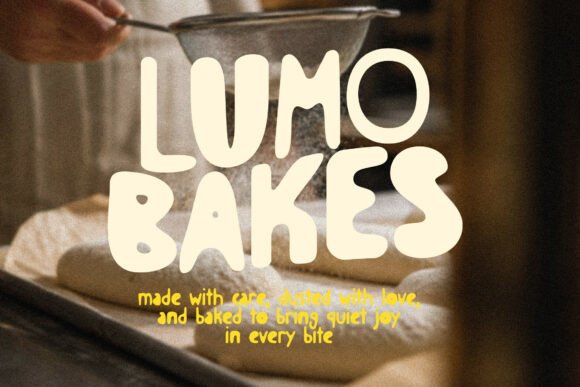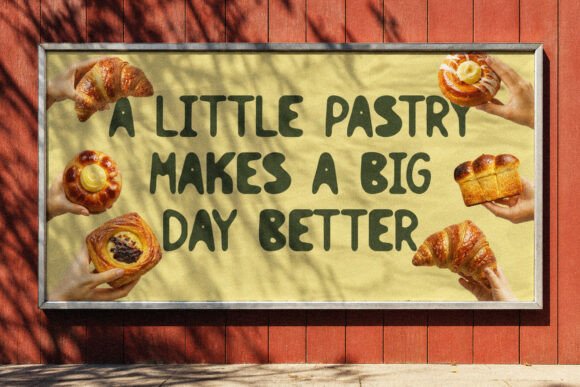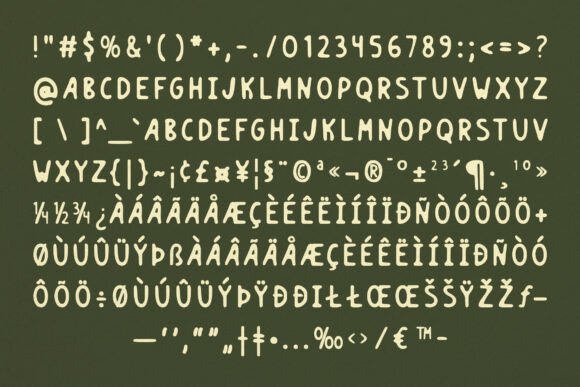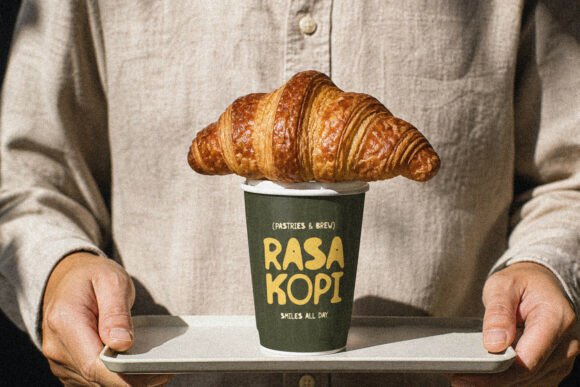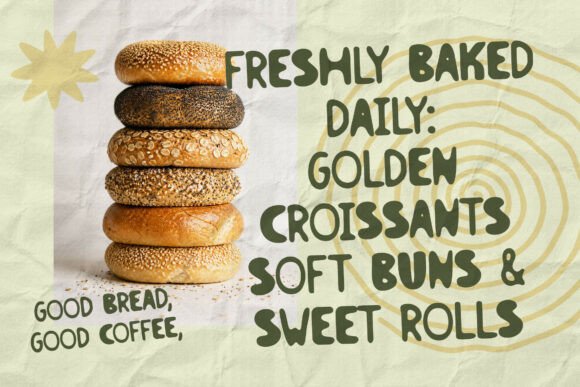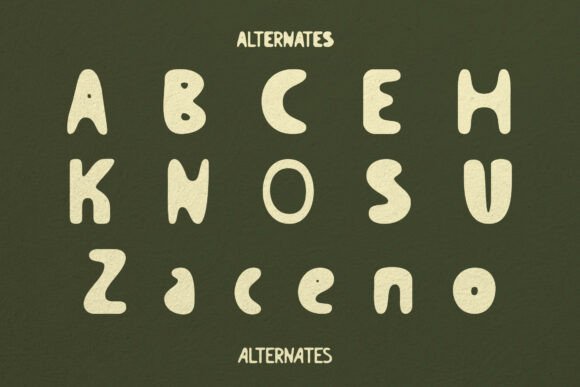
Introducing Finest Things Font: The Perfect Handcrafted Typeface for Your Creative Projects
Are you looking for a font that can add a touch of warmth, personality, and authenticity to your designs? Look no further than Finest Things, a soft-edged handcrafted font that is sure to bring a smile to your customers’ faces. Inspired by the charm of artisan bakeries, cozy cafés, organic packaging, and retro hand-painted signage, Finest Things is the perfect typeface for crafters, designers, and businesses looking to create a unique and memorable visual identity.
The Inspiration Behind Finest Things
Finest Things font is a thoughtful blend of playful character and smooth organic shapes, carefully crafted to evoke the feeling of handmade products and warm, inviting spaces. The font’s soft edges and natural curves are reminiscent of traditional craftsmanship, while its clean lines and legible design ensure that it remains highly readable, even at smaller sizes.
From the rustic charm of a local bakery to the cozy atmosphere of a neighborhood café, Finest Things font is designed to capture the essence of authentic, small-batch craftsmanship. Whether you’re creating branding materials for a food business, designing packaging for handmade products, or crafting social media content that feels approachable and personal, Finest Things is the perfect choice.
Key Features of Finest Things Font
- Soft Edges and Natural Curves: Finest Things features soft, rounded edges and natural curves that give the font a friendly, human touch.
- Handcrafted Details: Every letter is carefully crafted to create a sense of imperfection and uniqueness, adding to the font’s charm and character.
- Highly Legible: Despite its handcrafted feel, Finest Things remains highly readable, making it perfect for use in a variety of applications, from headlines to body text.
- Versatile: Finest Things works beautifully for both bold headlines and casual display text, making it a highly versatile font that can be used across a range of modern branding needs.
Finest Things font is incredibly versatile, making it suitable for a wide range of creative projects. Some of the applications where Finest Things really shines include:
- Rustic Café Branding: Create a warm and inviting atmosphere for your café or restaurant with Finest Things font.
- Bakery Packaging: Add a touch of charm and authenticity to your bakery packaging with Finest Things.
- Children’s Products: Finest Things font is perfect for creating fun and engaging branding for children’s products, such as toys, books, and games.
- Food Branding: Create a memorable and distinctive visual identity for your food business with Finest Things font.
- Social Media Content: Use Finest Things font to create social media content that feels approachable, personal, and engaging.
- Posters and Flyers: Finest Things font is perfect for creating eye-catching posters and flyers that grab attention and leave a lasting impression.
- Handcrafted Merchandise: Add a touch of handmade charm to your merchandise, such as t-shirts, mugs, and tote bags, with Finest Things font.
Finest Things font is a unique and charming typeface that is sure to bring warmth, personality, and authenticity to your creative projects. With its soft edges, natural curves, and handcrafted details, Finest Things is the perfect choice for designers, crafters, and businesses looking to create a memorable and distinctive visual identity. Whether you’re creating branding materials, packaging, or social media content, Finest Things font is the perfect tool to help you connect with your audience and stand out in a crowded market.